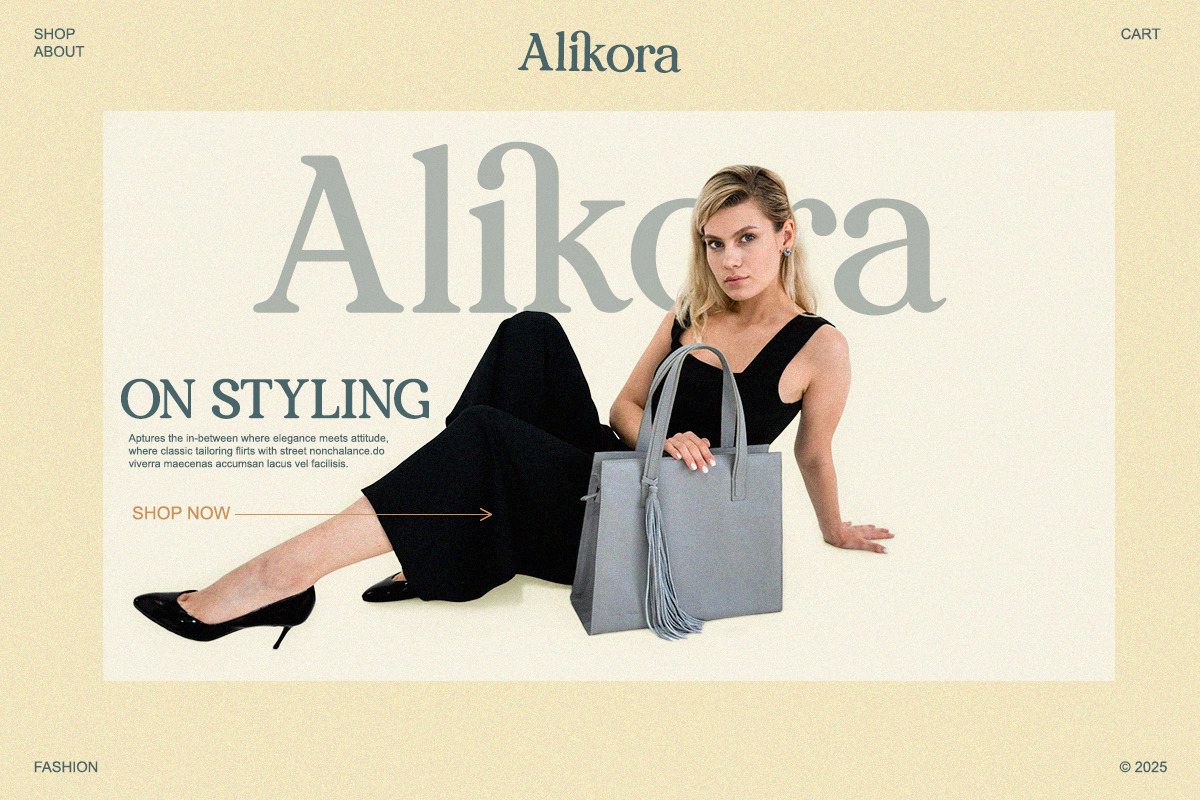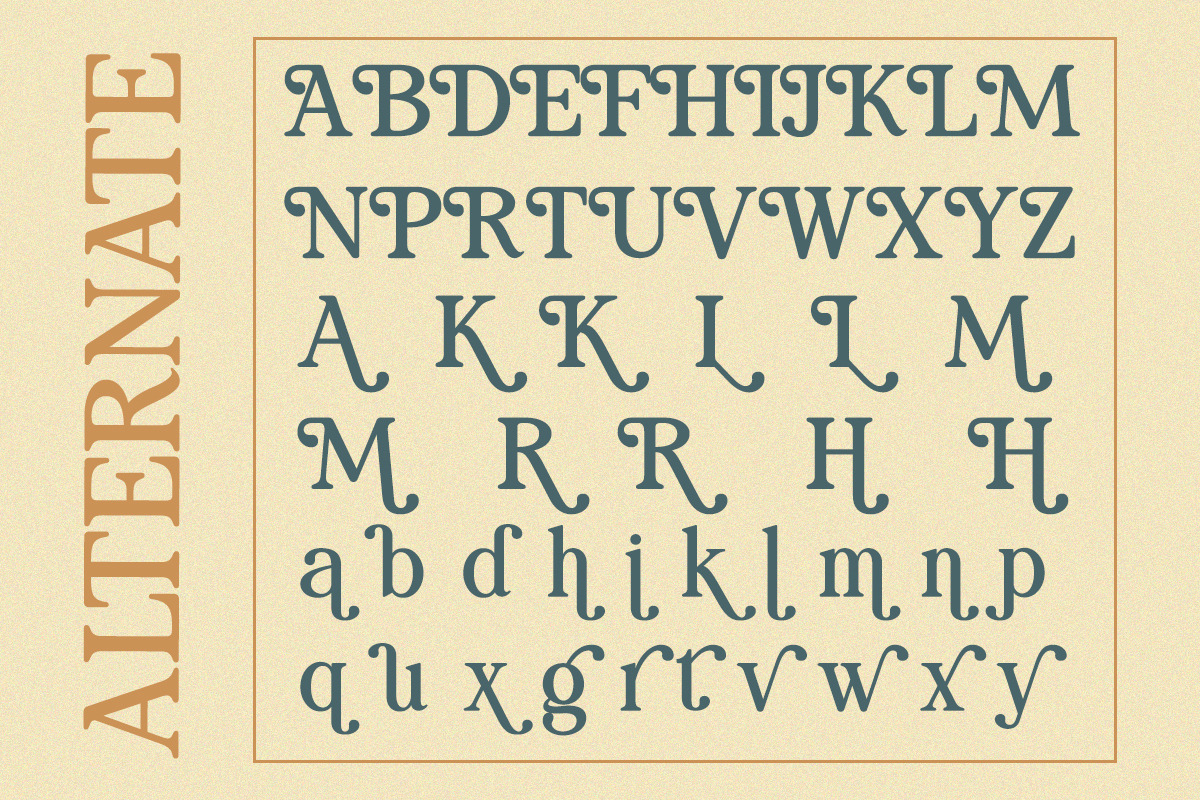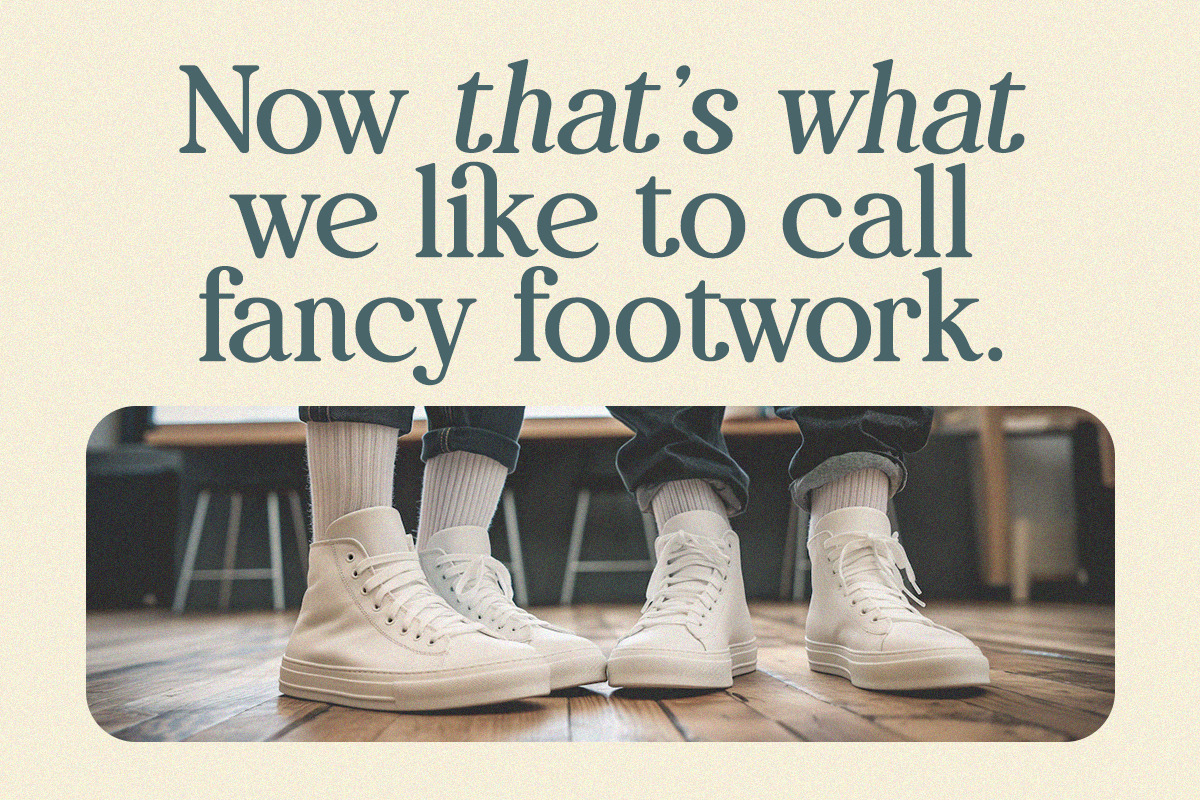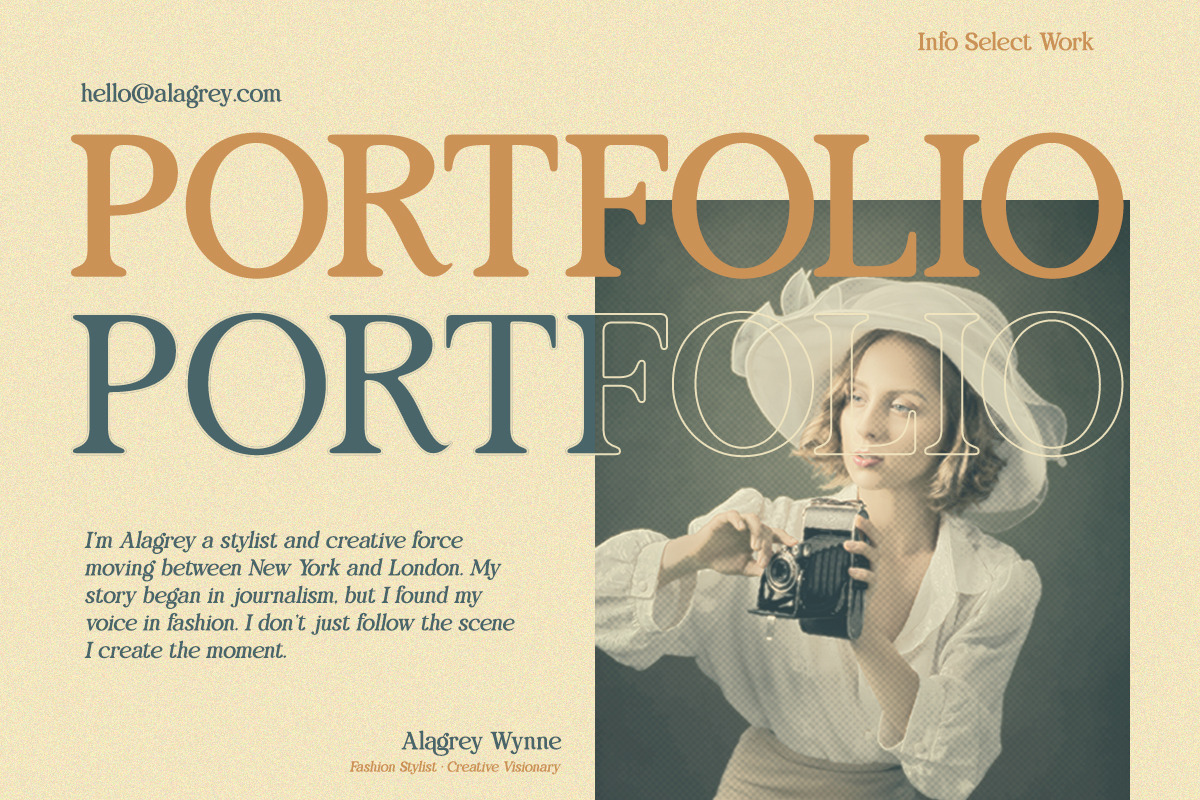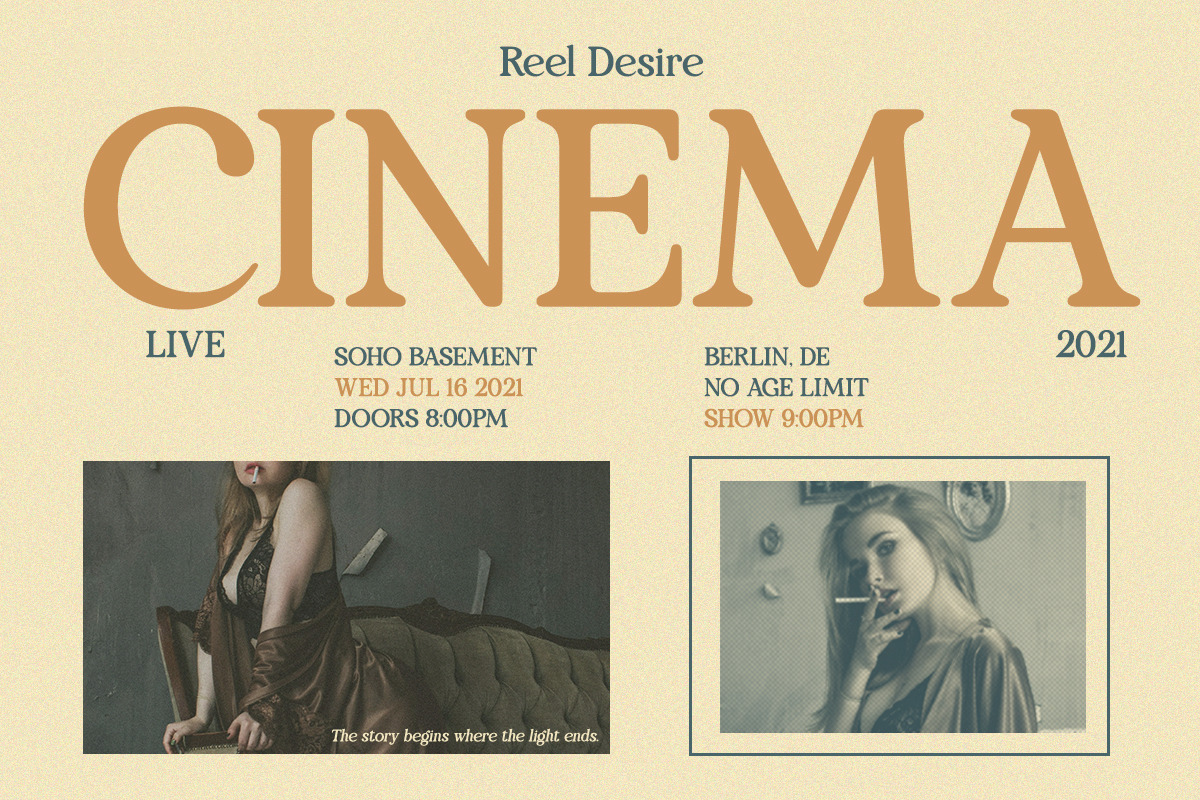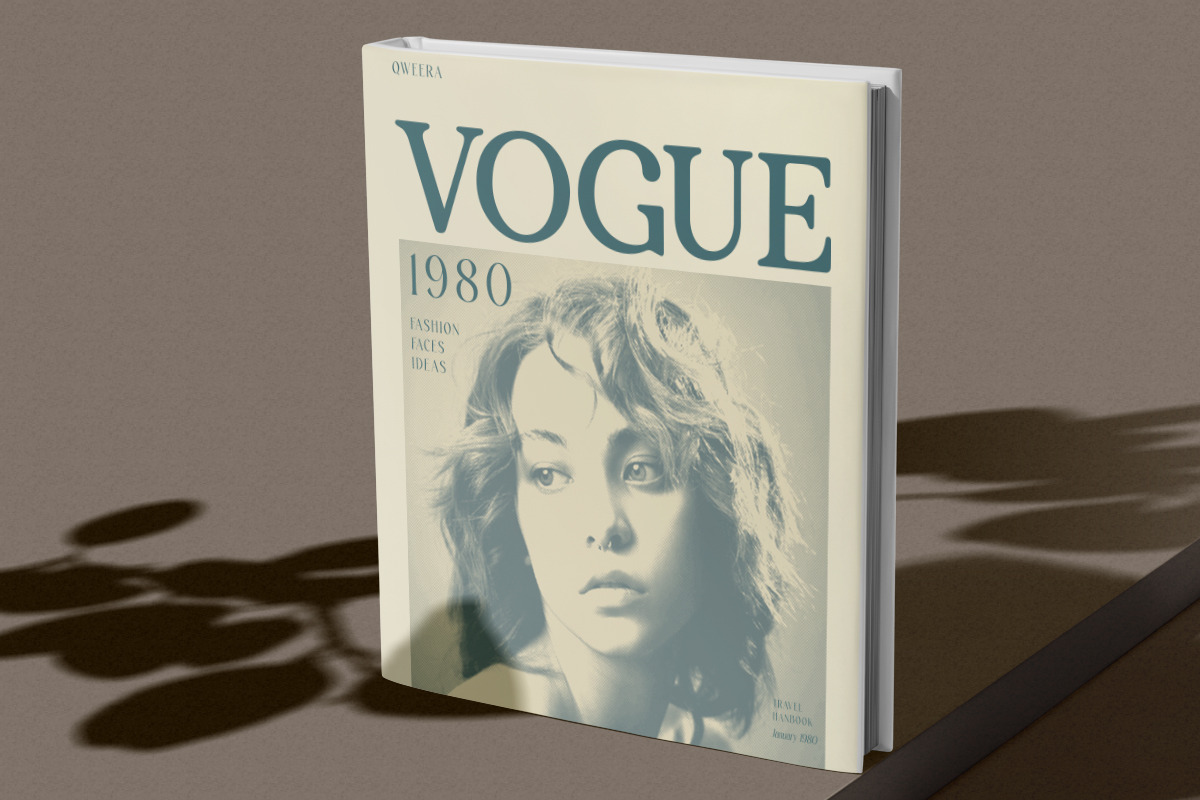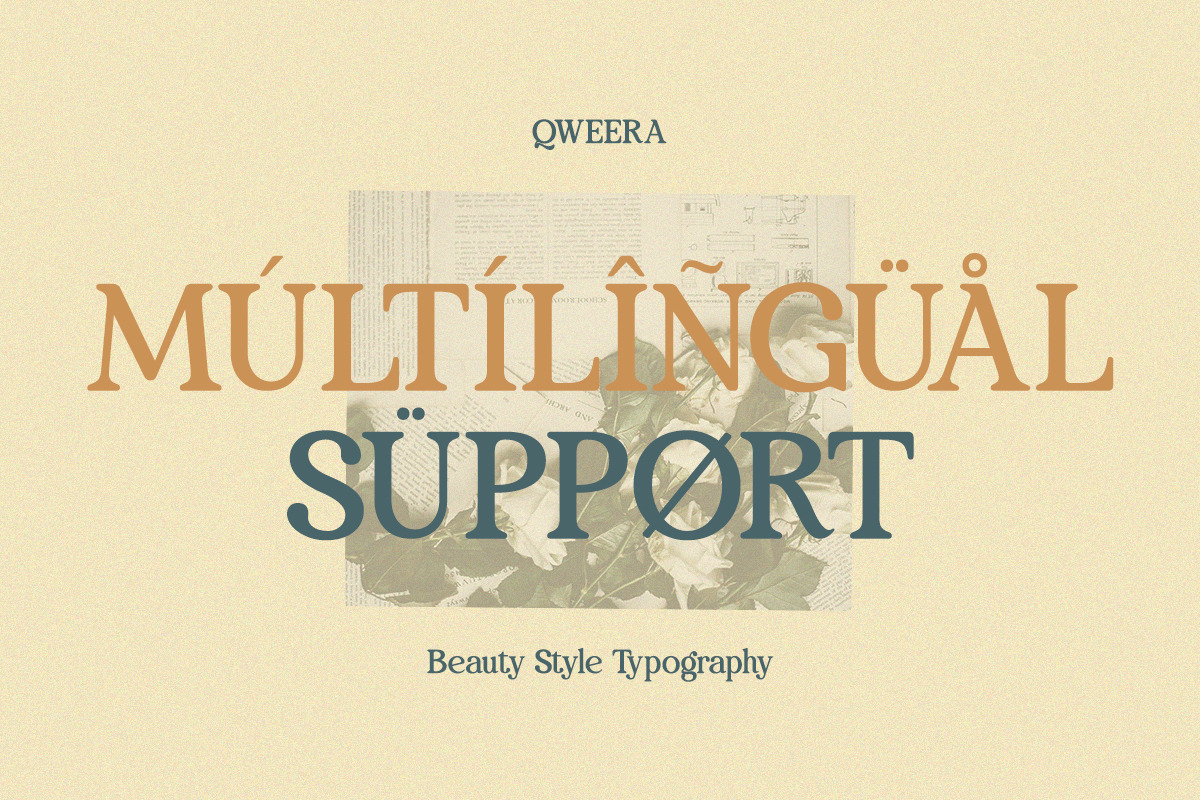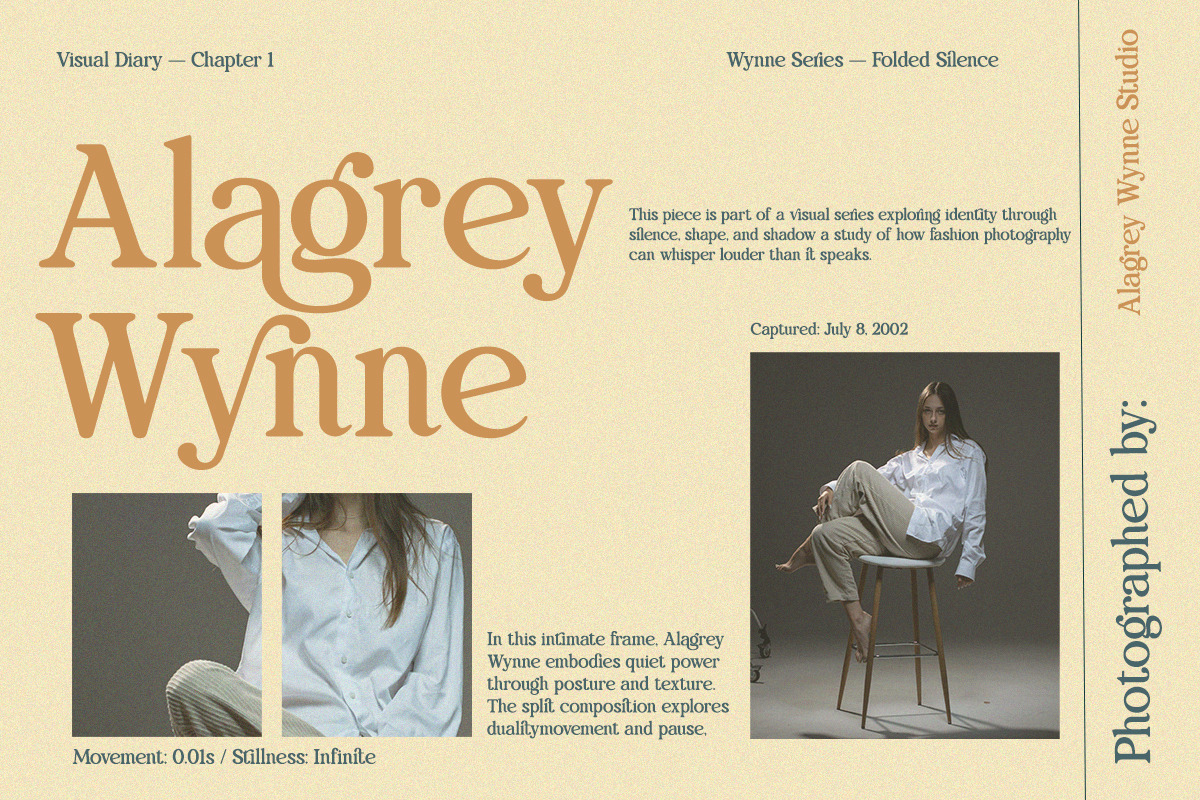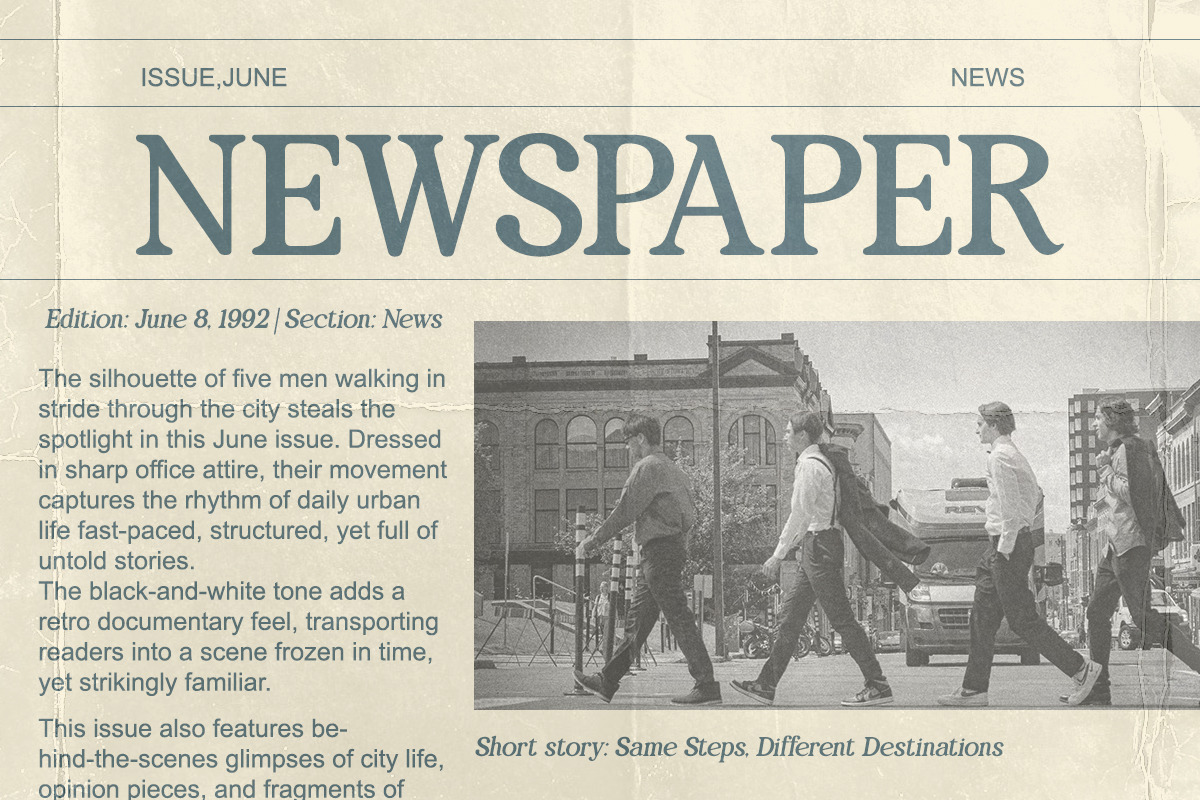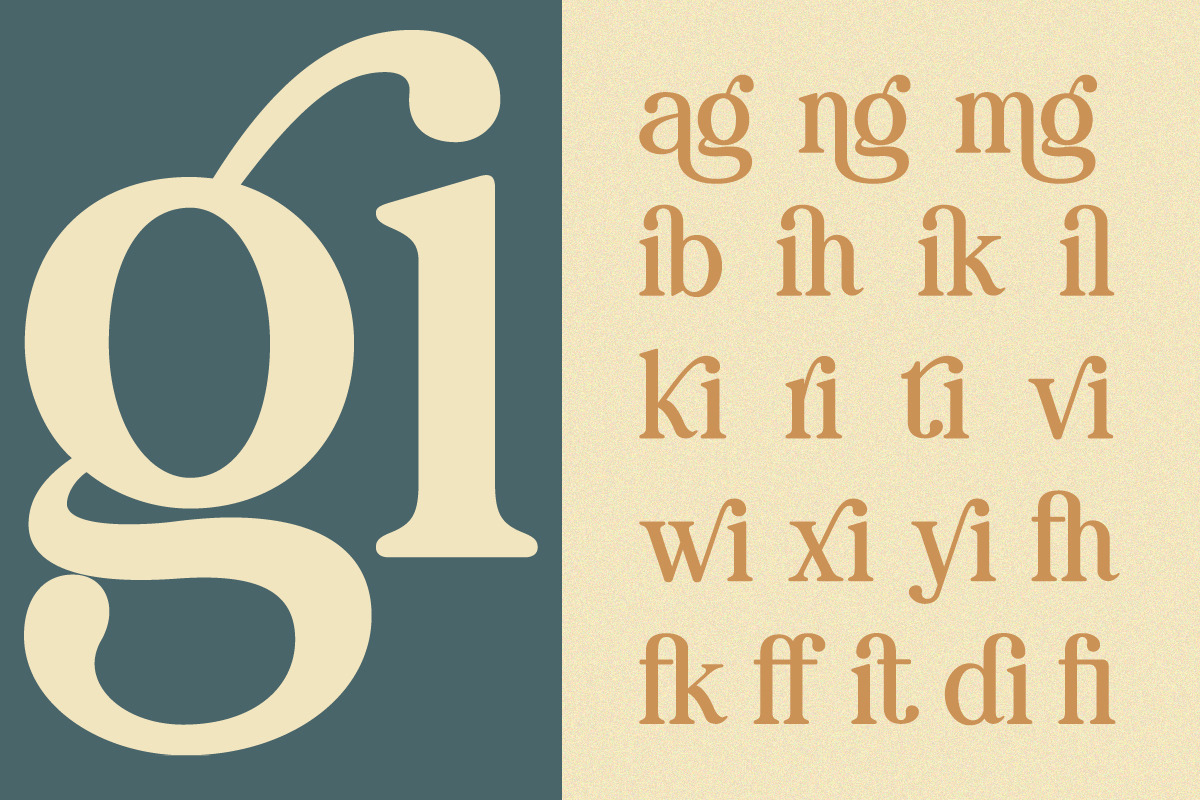
Vintage Odities - Retro Serif
Vintage Odities is a bold retro serif font that blends nostalgic charm with a modern twist.
Inspired by vintage posters, 70s print ads, and classic editorial typography, this typeface is designed for projects that demand timeless personality and artistic flair. With its ligatures, italic style, and multilingual support, Vintage Odities adds a unique soul to every creative work.
- Regular & Italic styles
- Stylish ligatures
- Retro serif aesthetic
- Retro branding projects
- Vintage posters & flyers
- Music album covers
- Editorial & magazine design
- Creative packaging
- Nostalgic social media graphics
Add a timeless retro feel with authentic character.